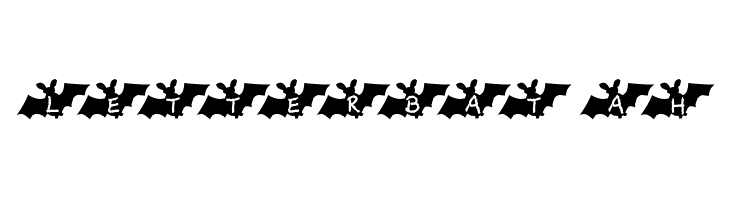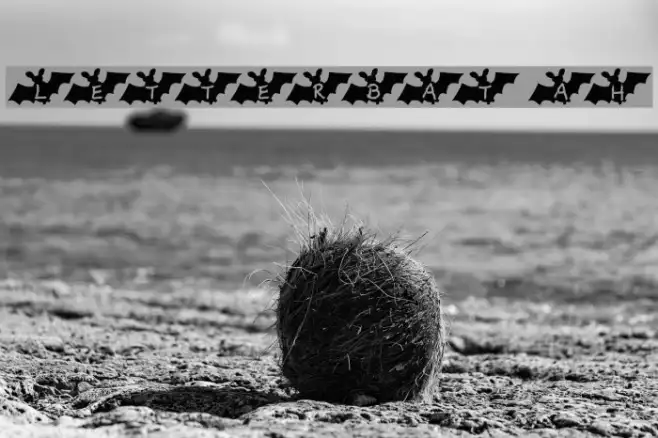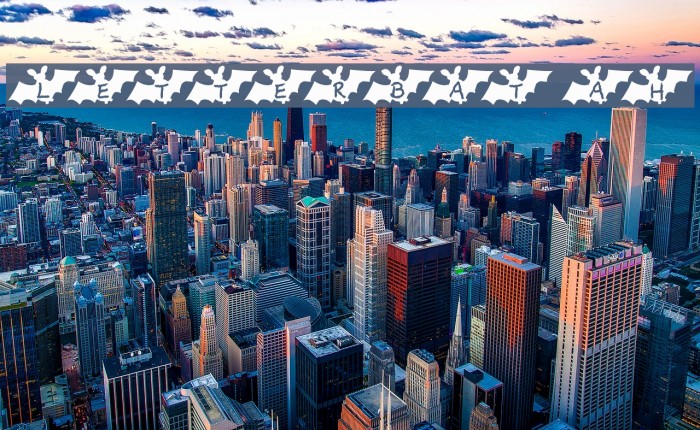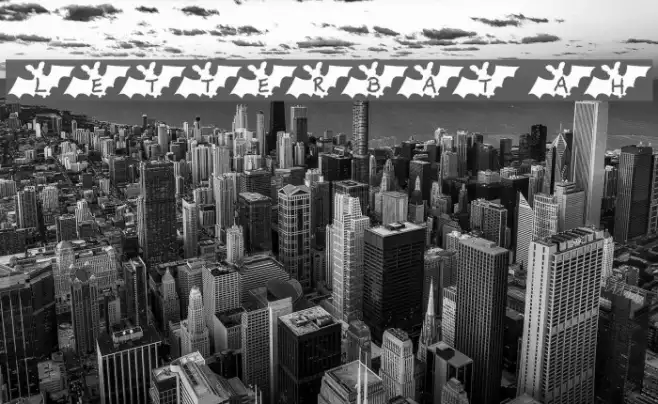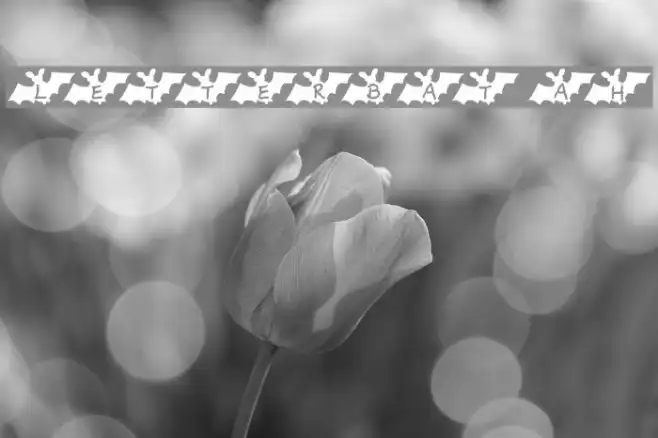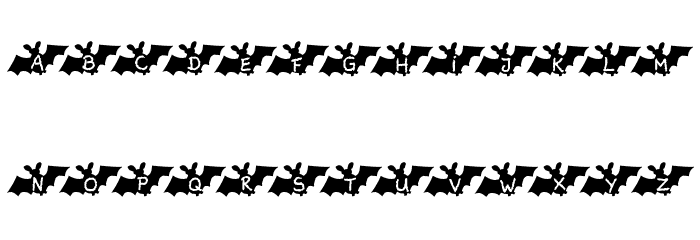
LetterBat AH Font
LetterBat AH Description
This font features a unique and playful design where each character is integrated into a bat silhouette, creating a whimsical and thematic appearance. The letters and numbers are bold and easily distinguishable, with each character appearing as if it is part of the bat's body. This design is perfect for Halloween-themed projects or any creative work that requires a spooky or fun element. The special characters, including symbols like the heart and ampersand, are also cleverly incorporated into the bat design, maintaining consistency across the entire set.
| Use Case | Headlines, Logos, Themed Events |
| Proposed Projects | This font is perfect for Halloween invitations, themed party decorations, children's books, or any project requiring a fun and spooky aesthetic. |